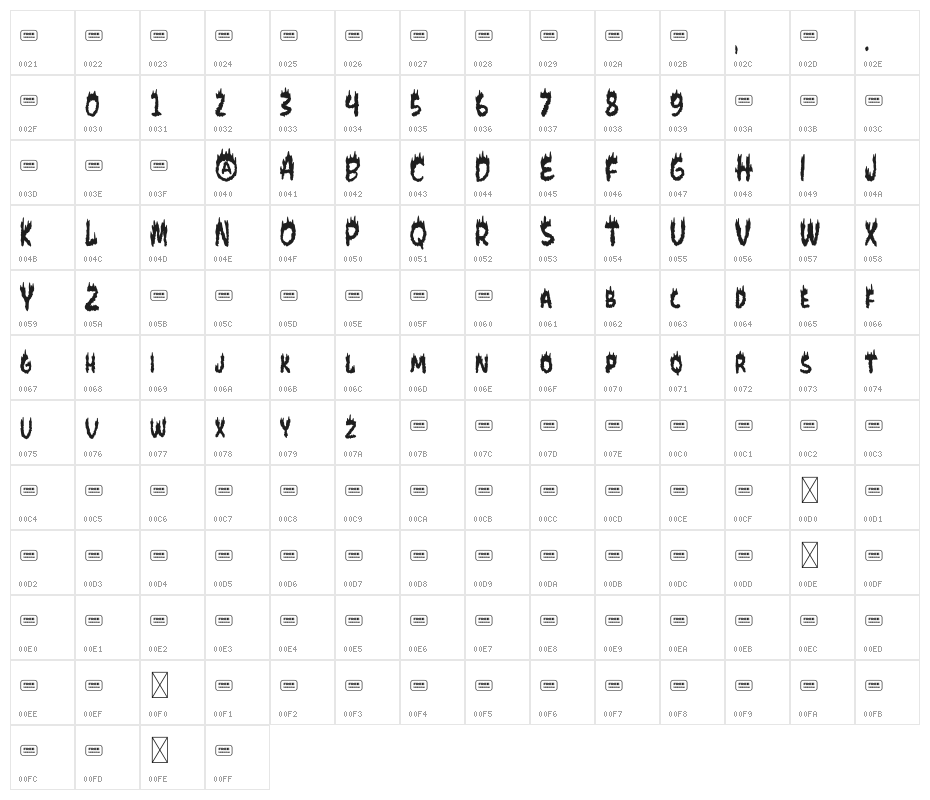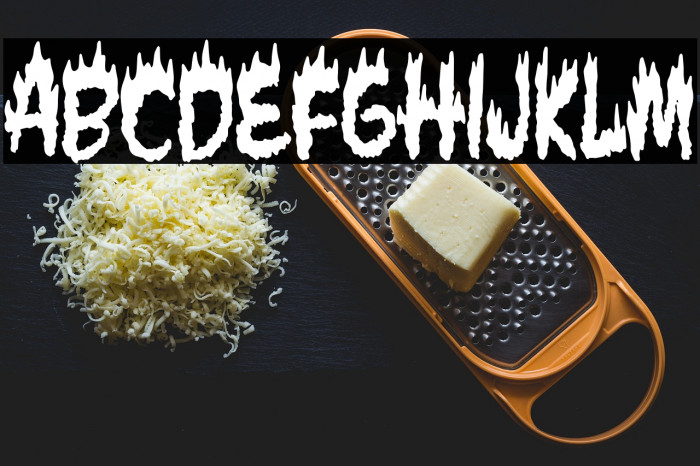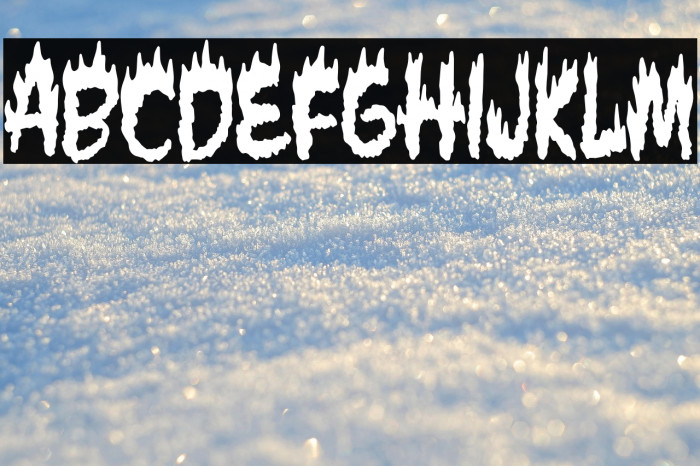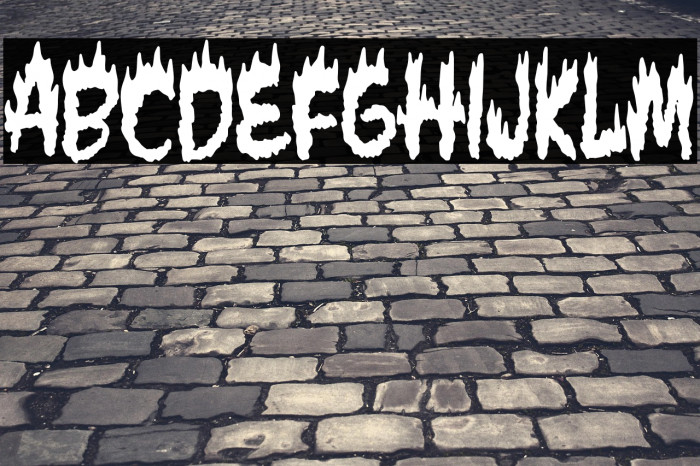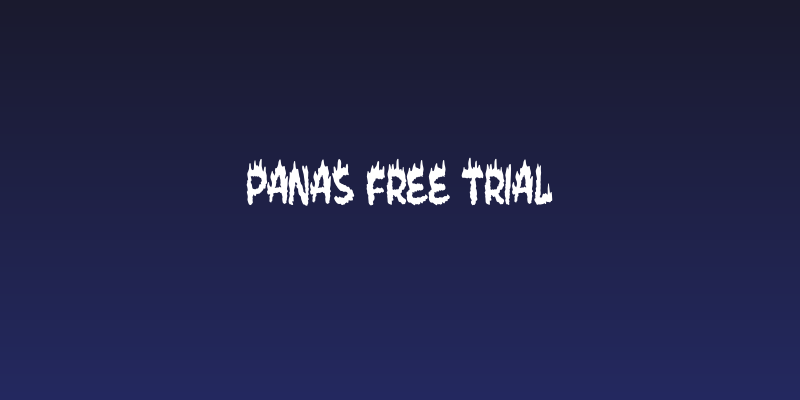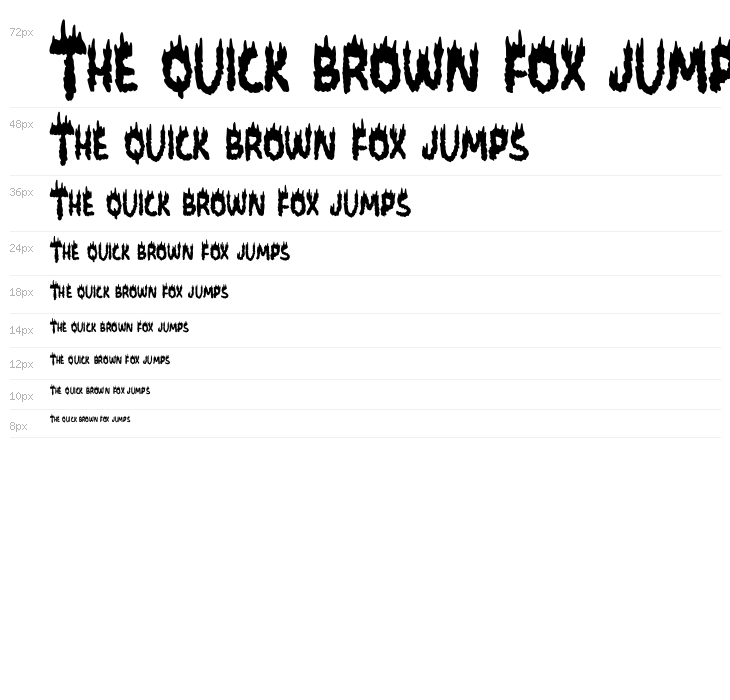
Panas Free Trial Font
Panas Free Trial Description
This font features a bold and jagged design, reminiscent of flames or torn paper edges, giving it a dynamic and energetic appearance. The uppercase and lowercase letters maintain a consistent style, with each character exhibiting unique, irregular edges that contribute to its distinctive look. The numbers and special characters follow the same aesthetic, ensuring a cohesive appearance across all glyphs. This font is particularly eye-catching and would stand out in any design project requiring a bold statement.
| Proposed Projects | Ideal for Halloween-themed designs, horror movie posters, edgy branding, or any project needing a dramatic and eye-catching typeface. |